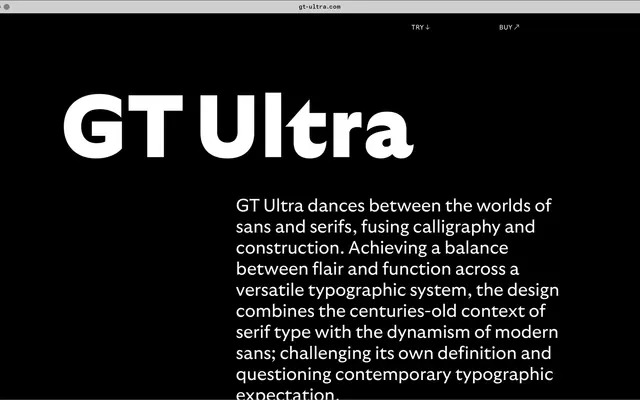
GT Ultra
Noël Leu's 33-style semi-serif that dances between sans and serif worlds across Standard, Median and Fine cuts.
A 33-style semi-serif by Noël Leu with Huw Williams and Grilli Type, released in 2021. Grilli describe it as fusing calligraphy and construction across three subfamilies (Standard, Median and Fine) that move from soft to sharp. Six weights up to Ultra come with italics and a single-story g alternate, suited to identities that want serif gravitas with sans-leaning clarity.
Grilli describe it as dancing between the worlds of sans and serif, fusing calligraphy and construction. The system challenges its own definition and questions contemporary typographic expectations.